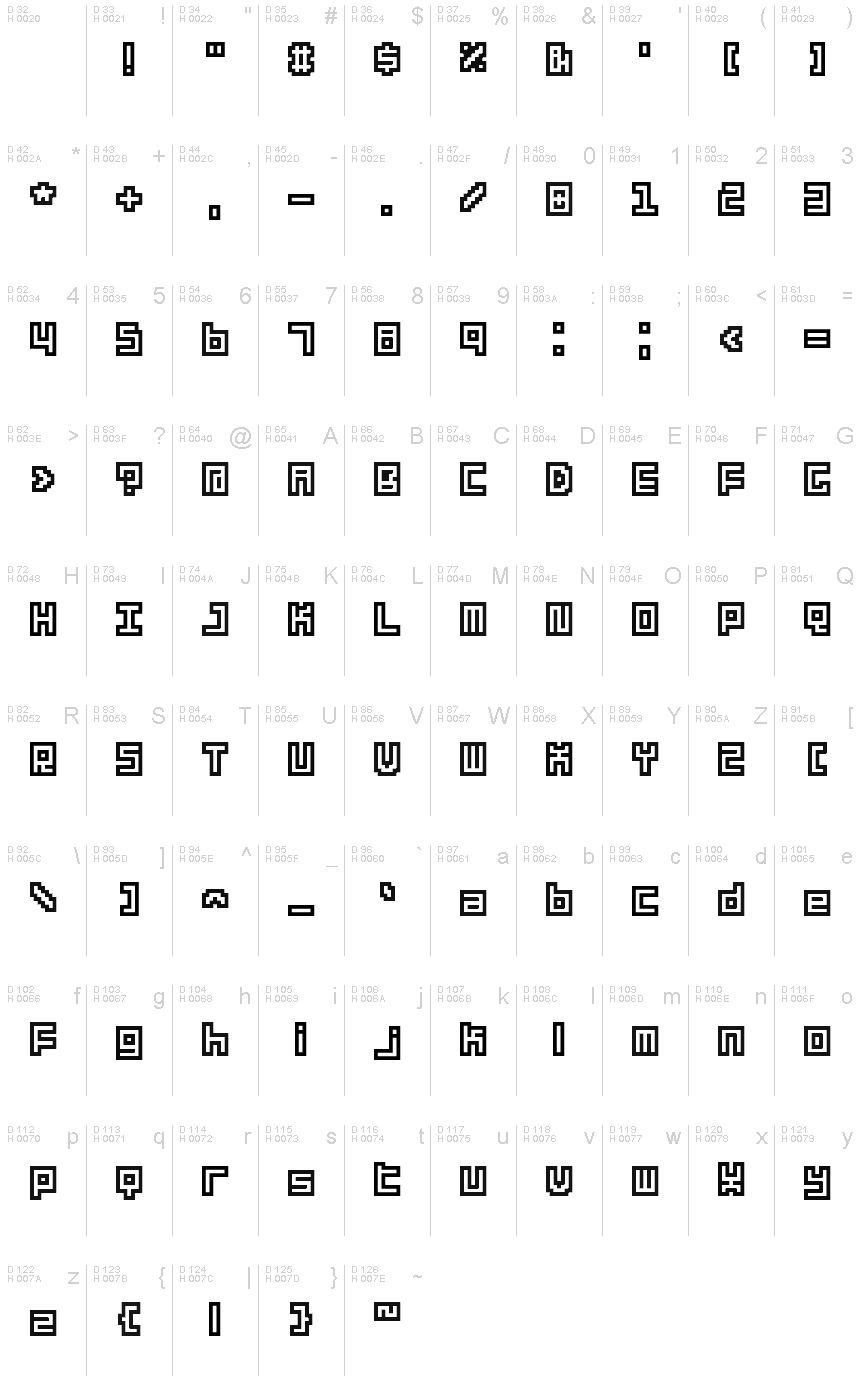
Your Quota Regular
Designer description: Made on a whim as a result of rediscovering an old design (see sample).
It's pixel perfect at 12pt, 24pt, 36pt, etc. :^)
Since the inspiration image had only uppercase in it, I took some style liberties with the lowercase. The result is mildly comical!